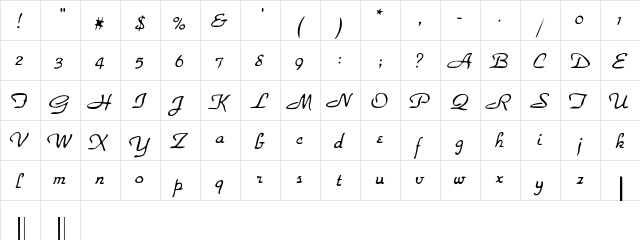
Park-Haven Regular Font Preview
Park-Haven Regular
Park-Haven Regular Font Details
Design Context for Park-Haven Typeface
Park-Haven is a composed and adaptable typeface that performs quietly and consistently across a wide range of design contexts.